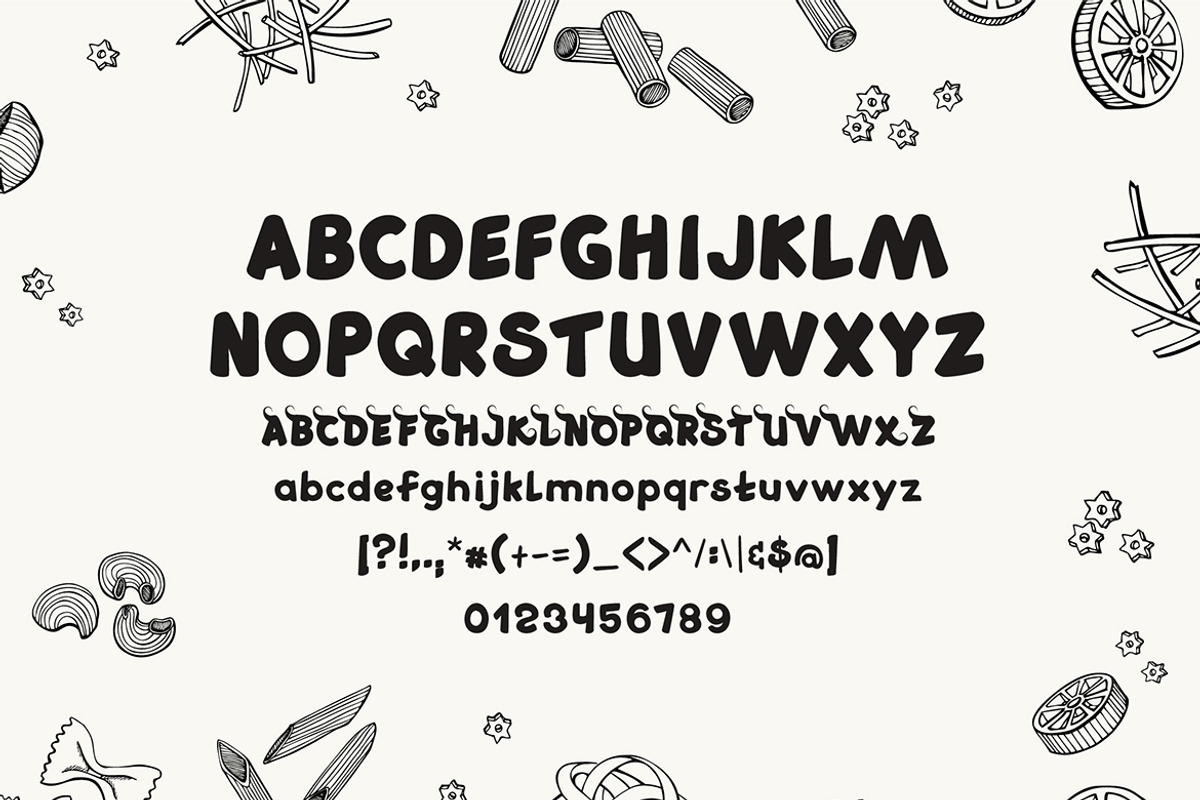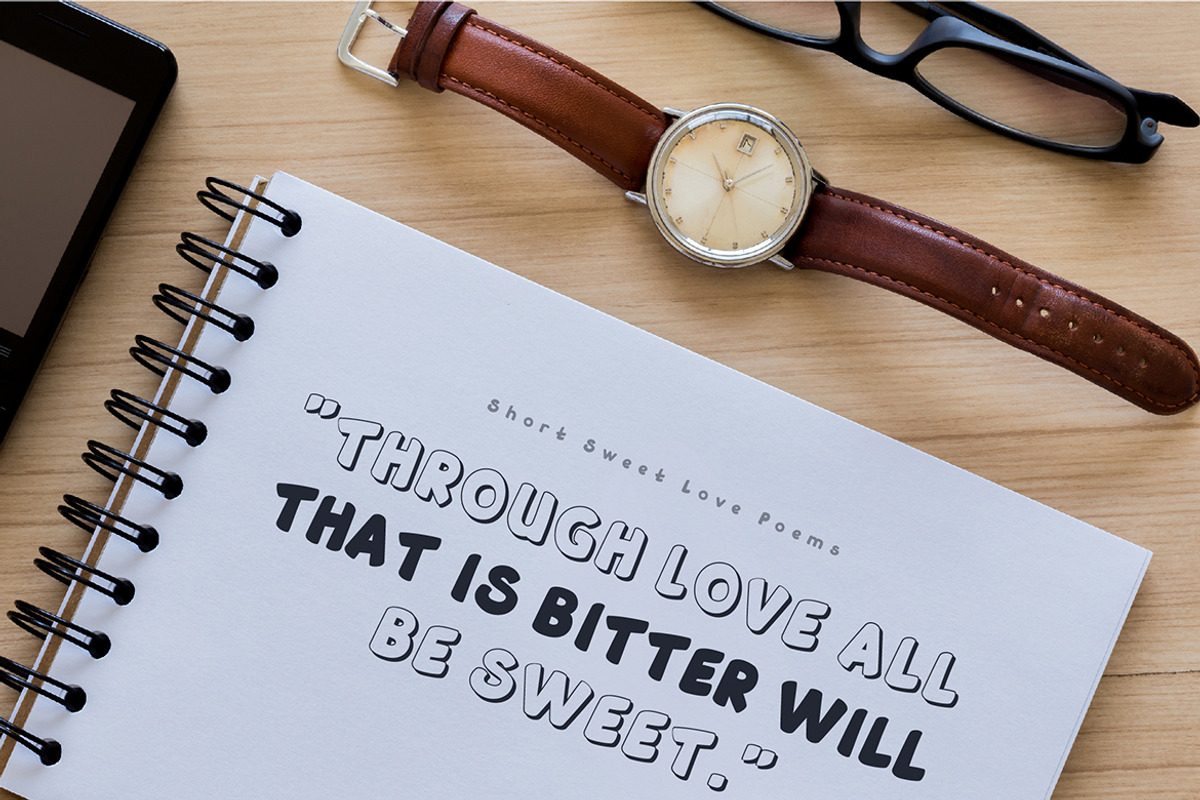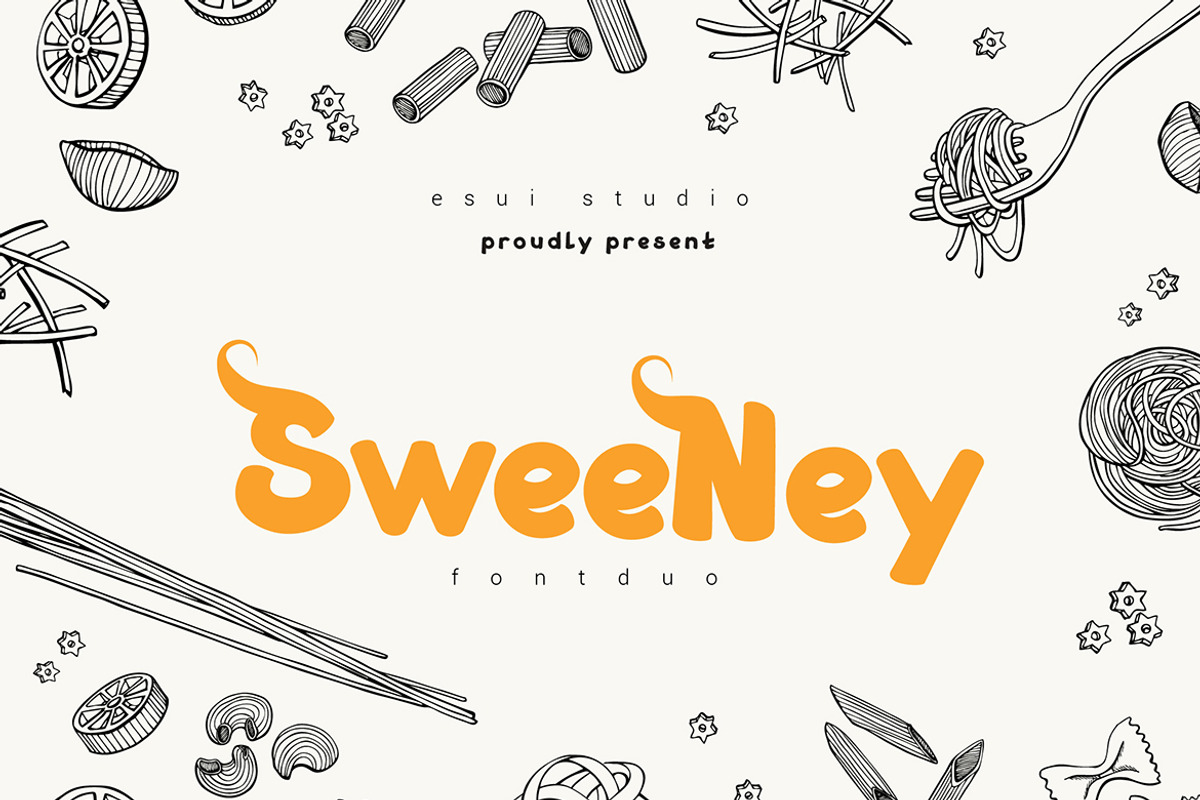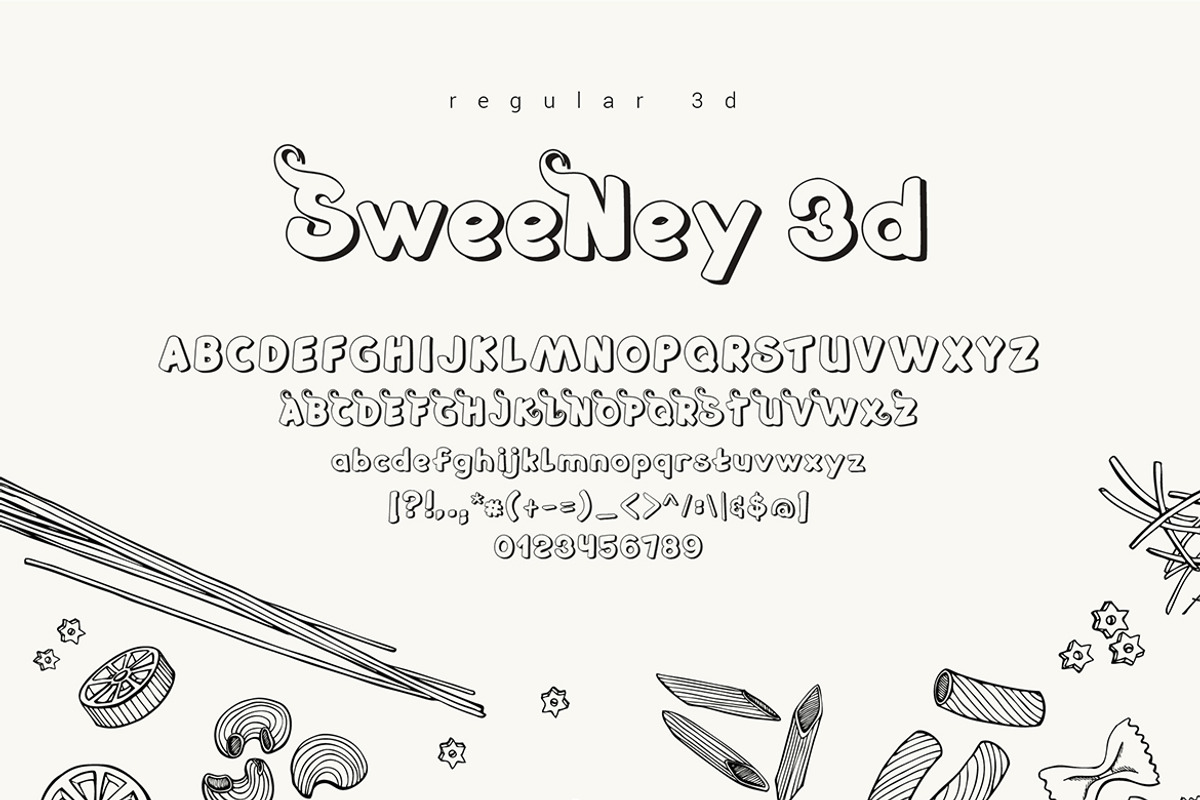
Sweeney Font
Introducing a set of duo comic fonts that was cheerfully designed to work together in harmony to create the ultimate masterpiece in typography designs in a flash! Features include uppercase, lowercase, numerals, symbols, punctuation, ligature and stylistic alternate.